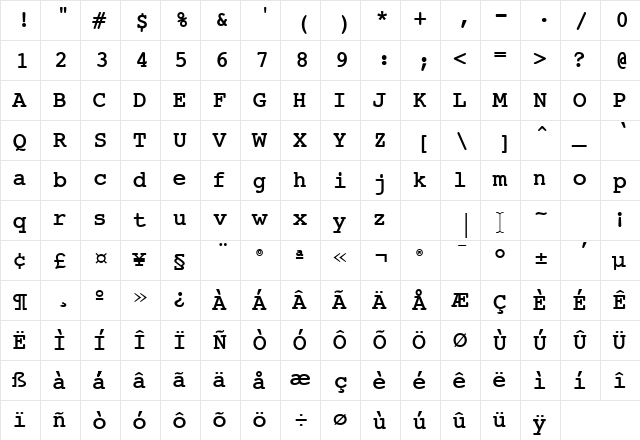
JackInput Regular
Design Context for JackInput Typeface
JackInput takes a measured approach to typography — its balanced proportions and neutral character make it a reliable workhorse for both digital and print work.